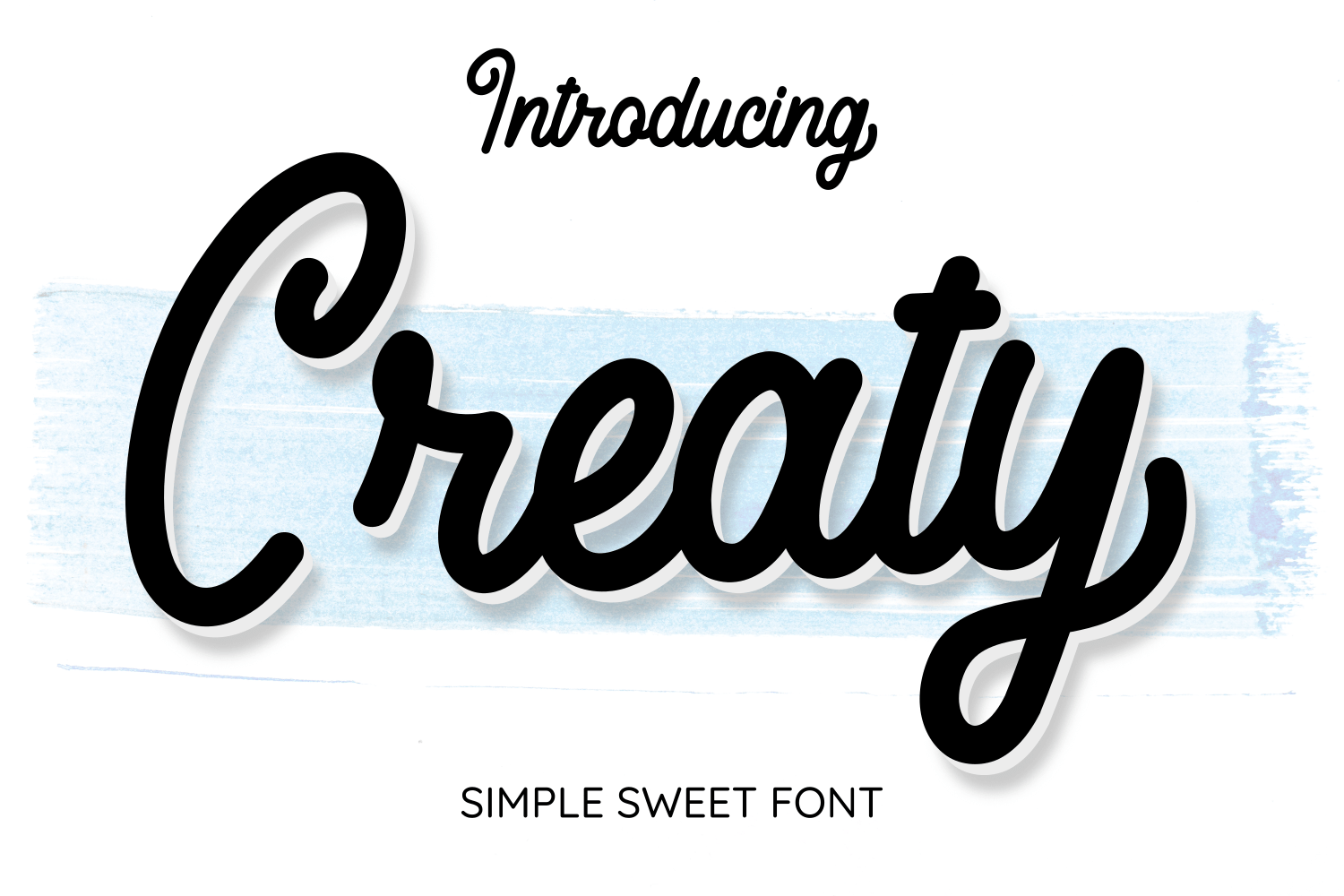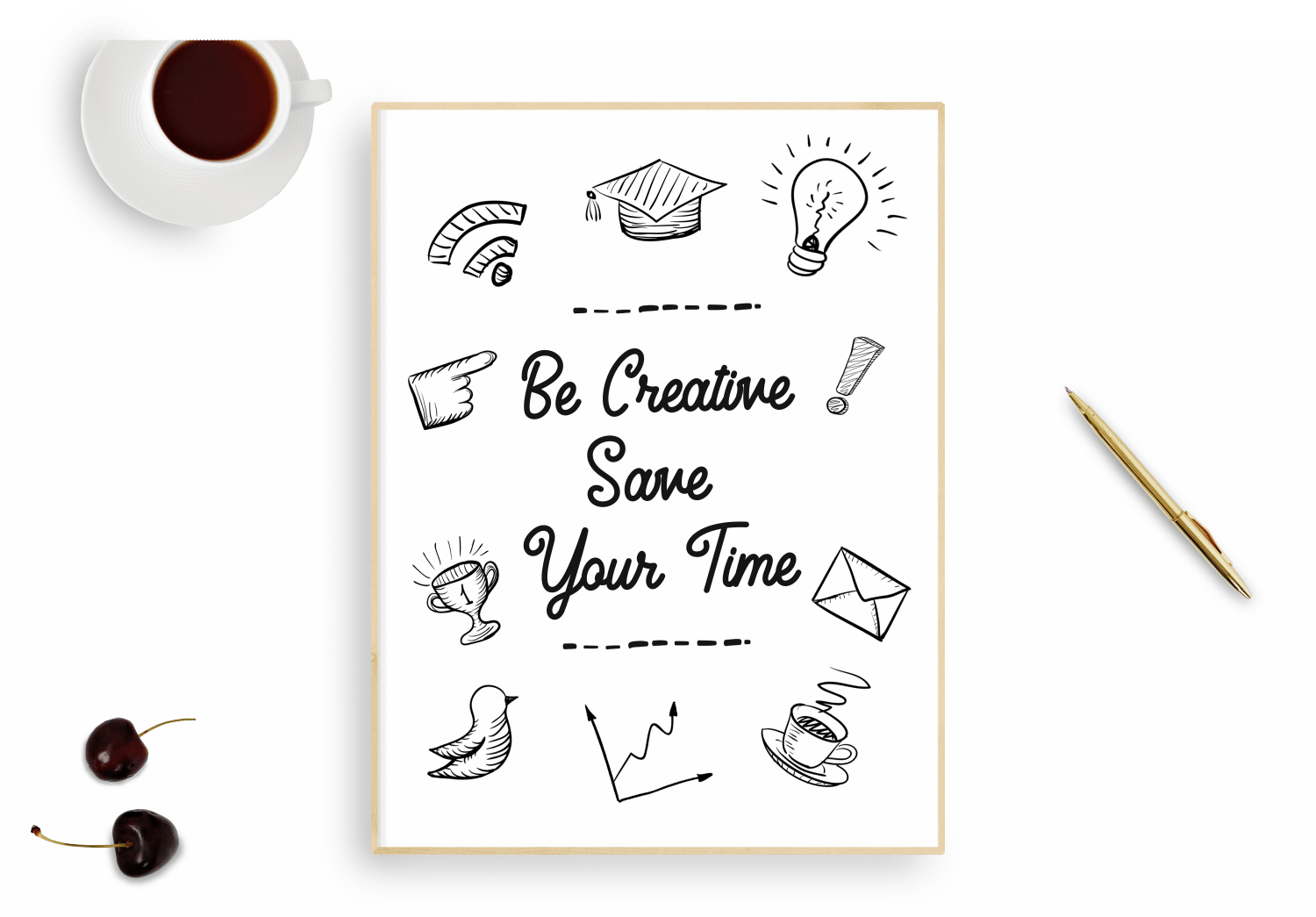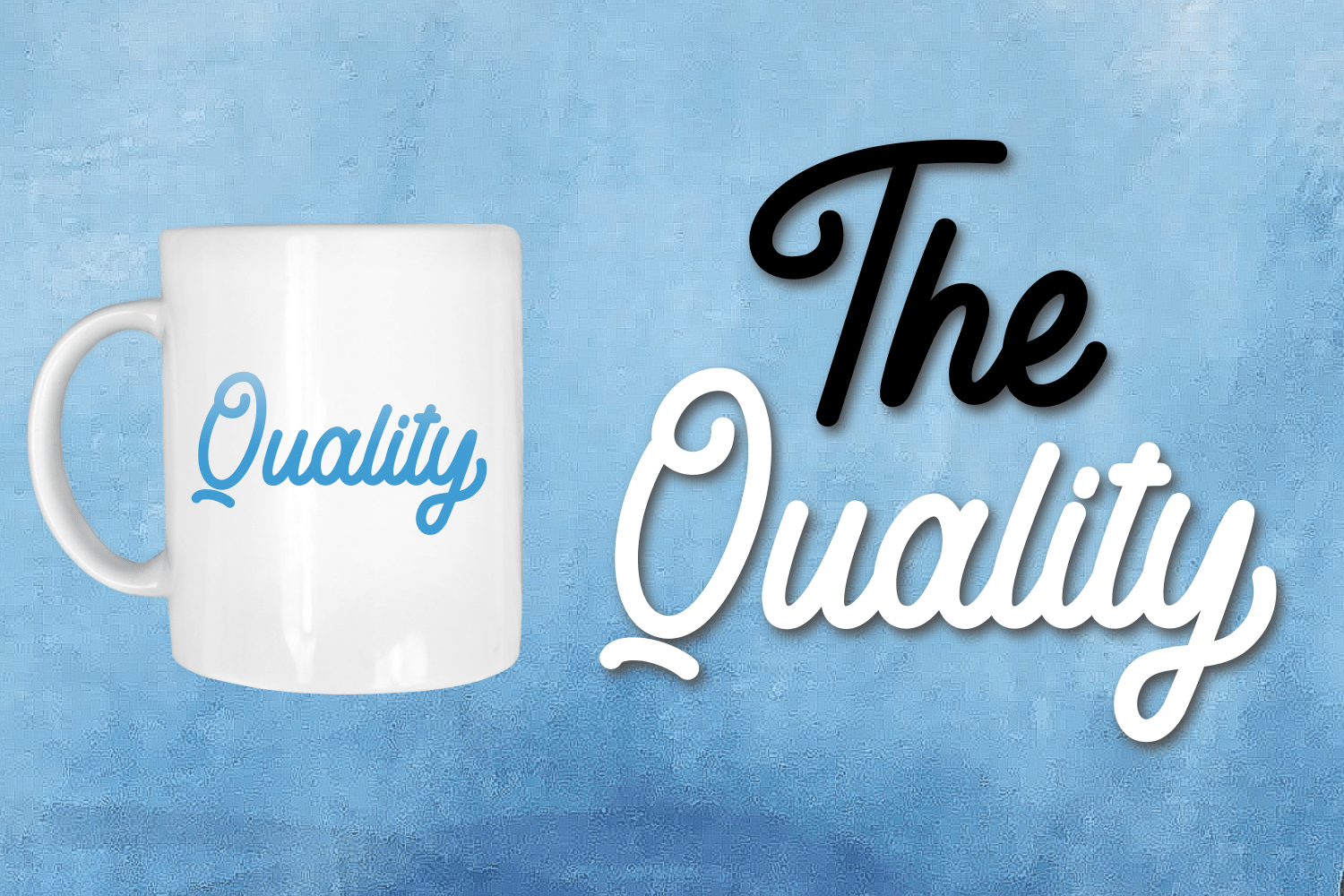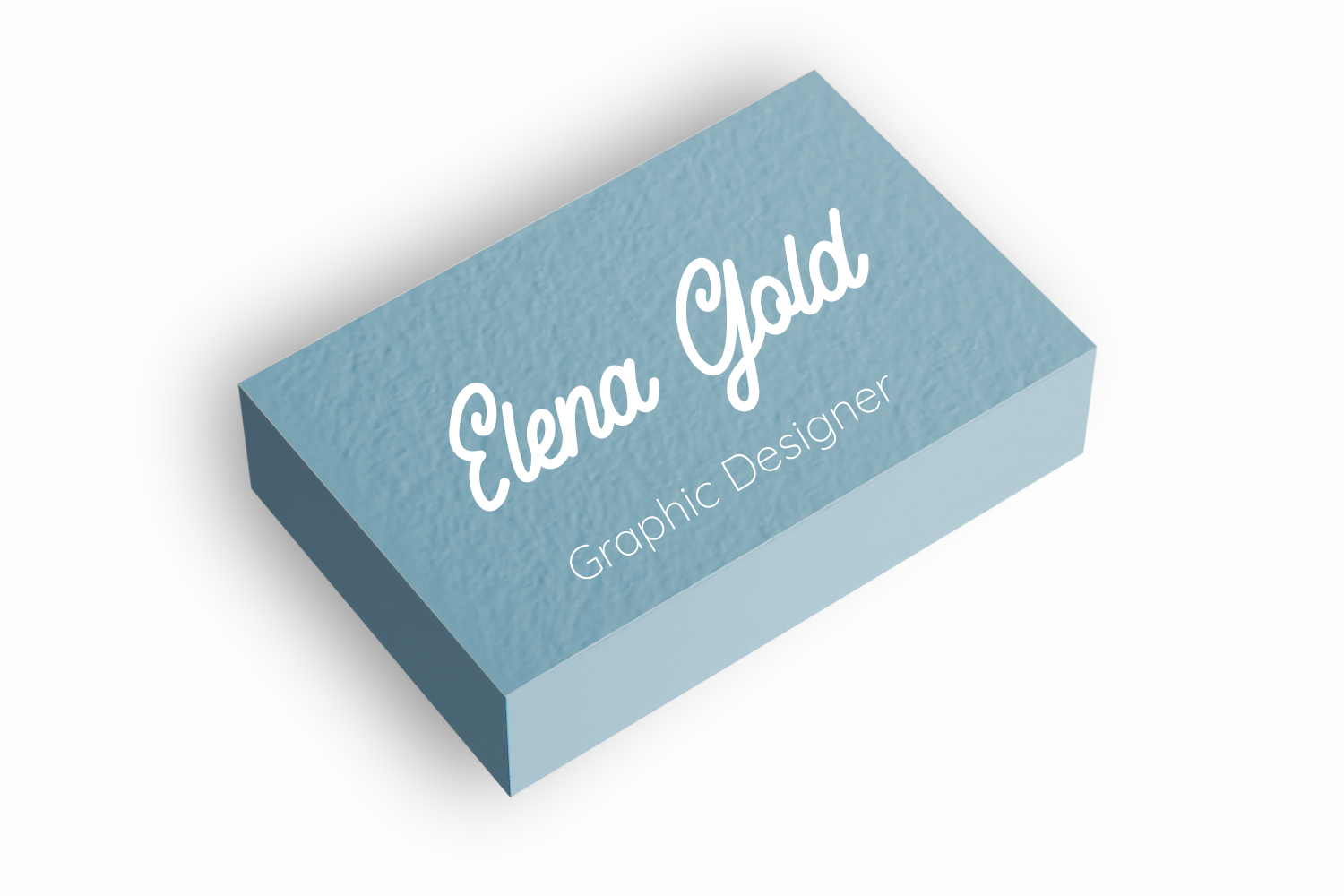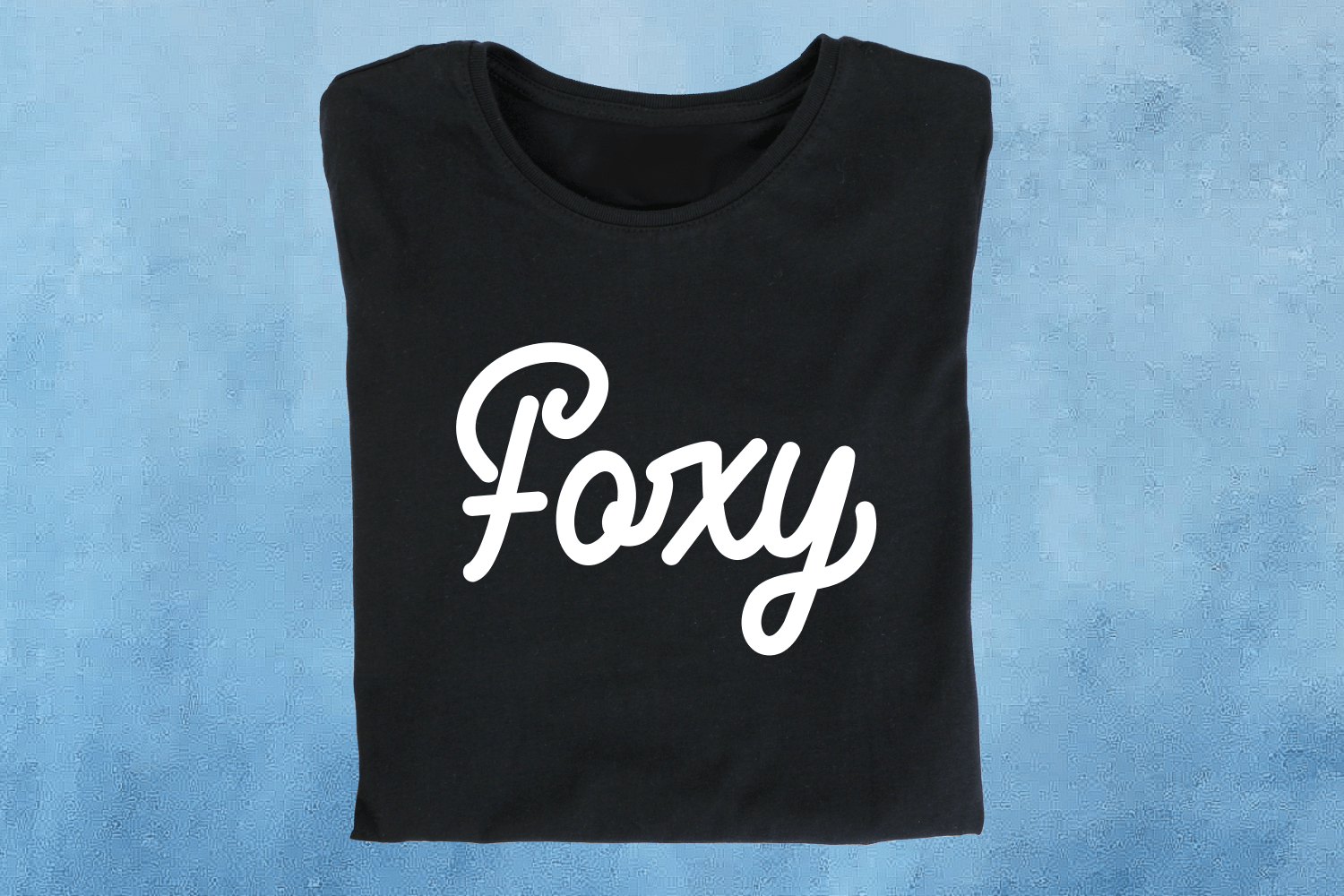
Creaty Handwritten Font is a simple and sweet script font. Suitable for various designs such as t-shirt designs, quotes, weddings, business cards and more. This font supports multiple languages and also alternates. For alternates y, g, j, z you can use them easily, by typing: y2, g2, j2, z2
For alternates y, g, j, z you can use them easily, by typing: y2, g2, j2, z2